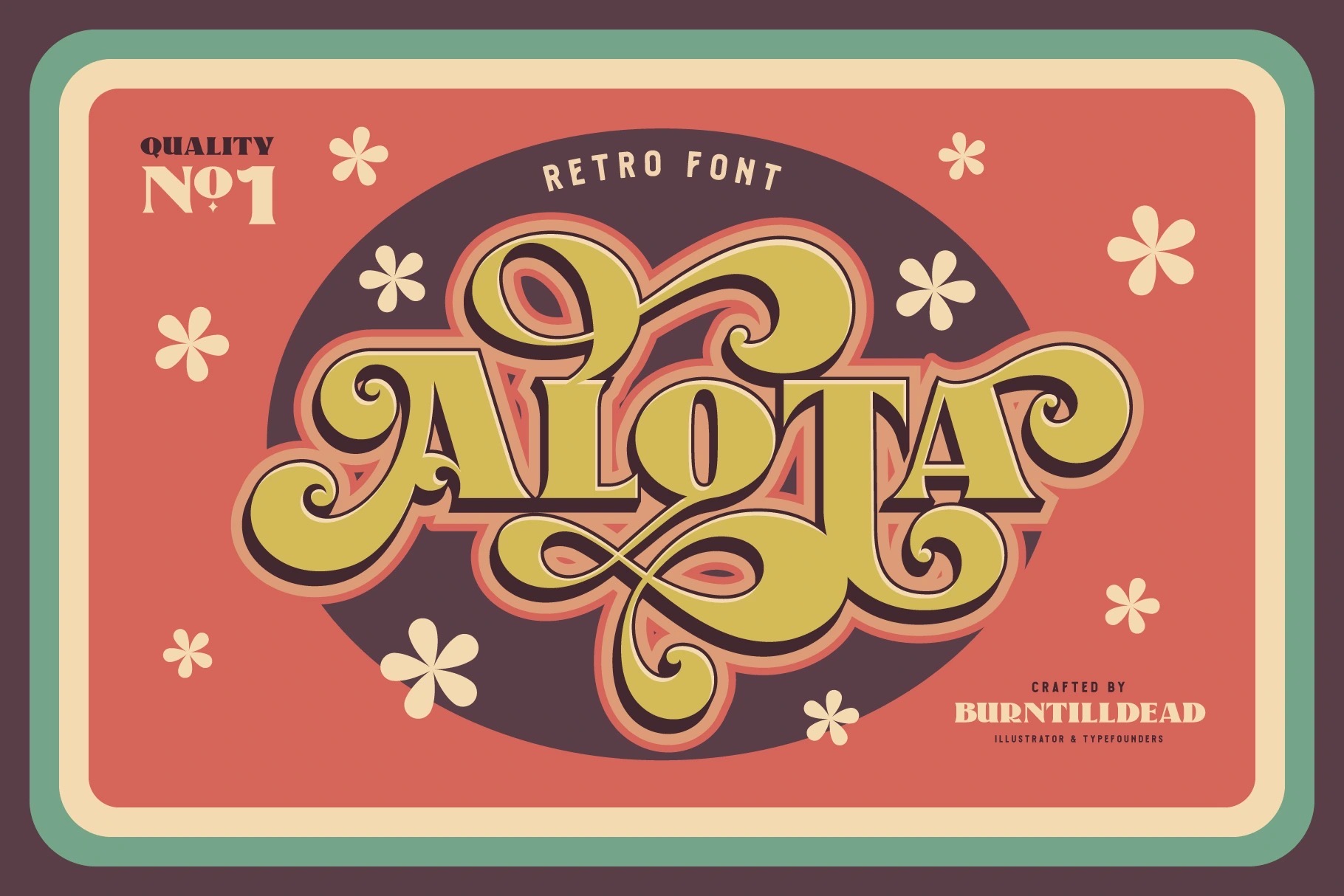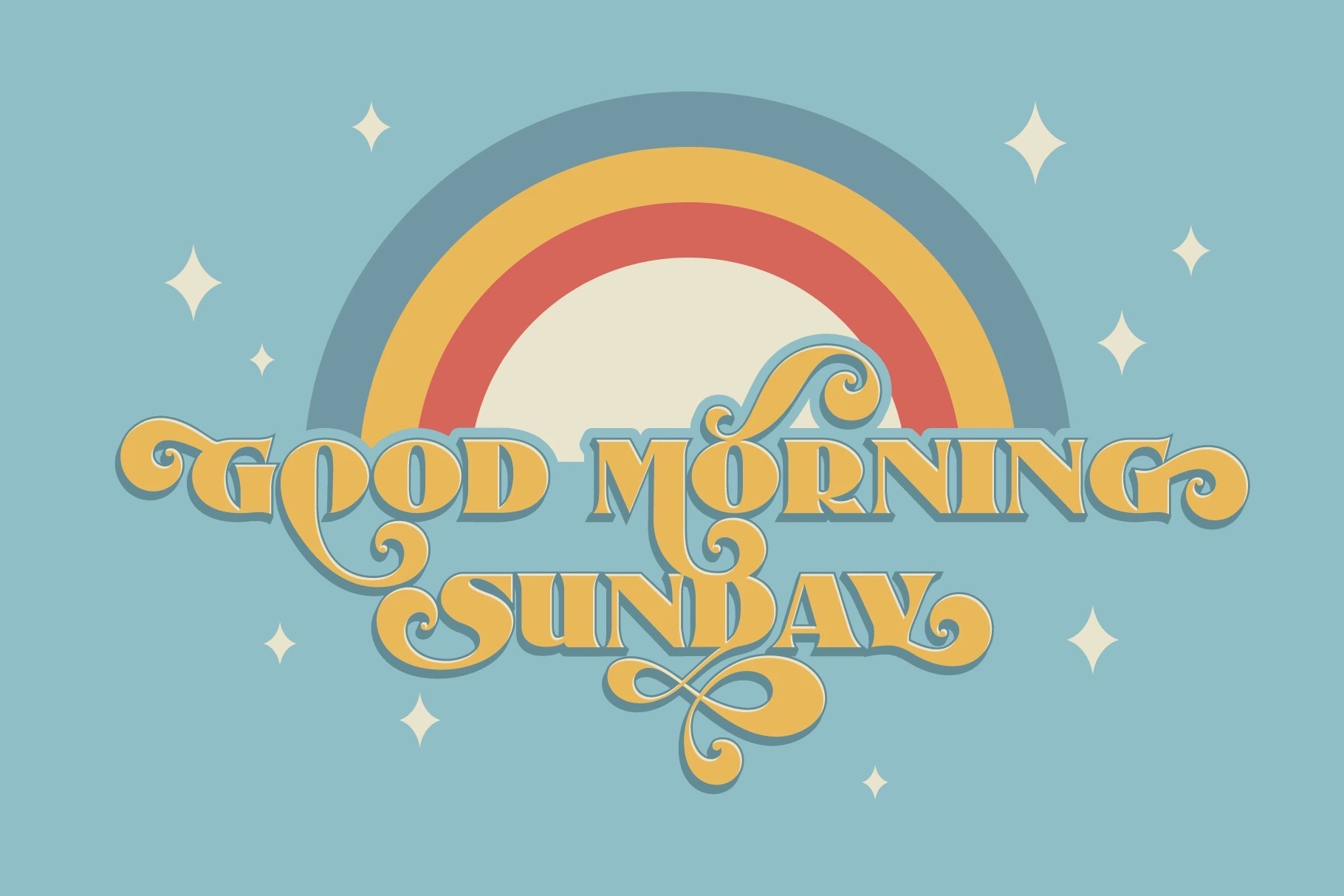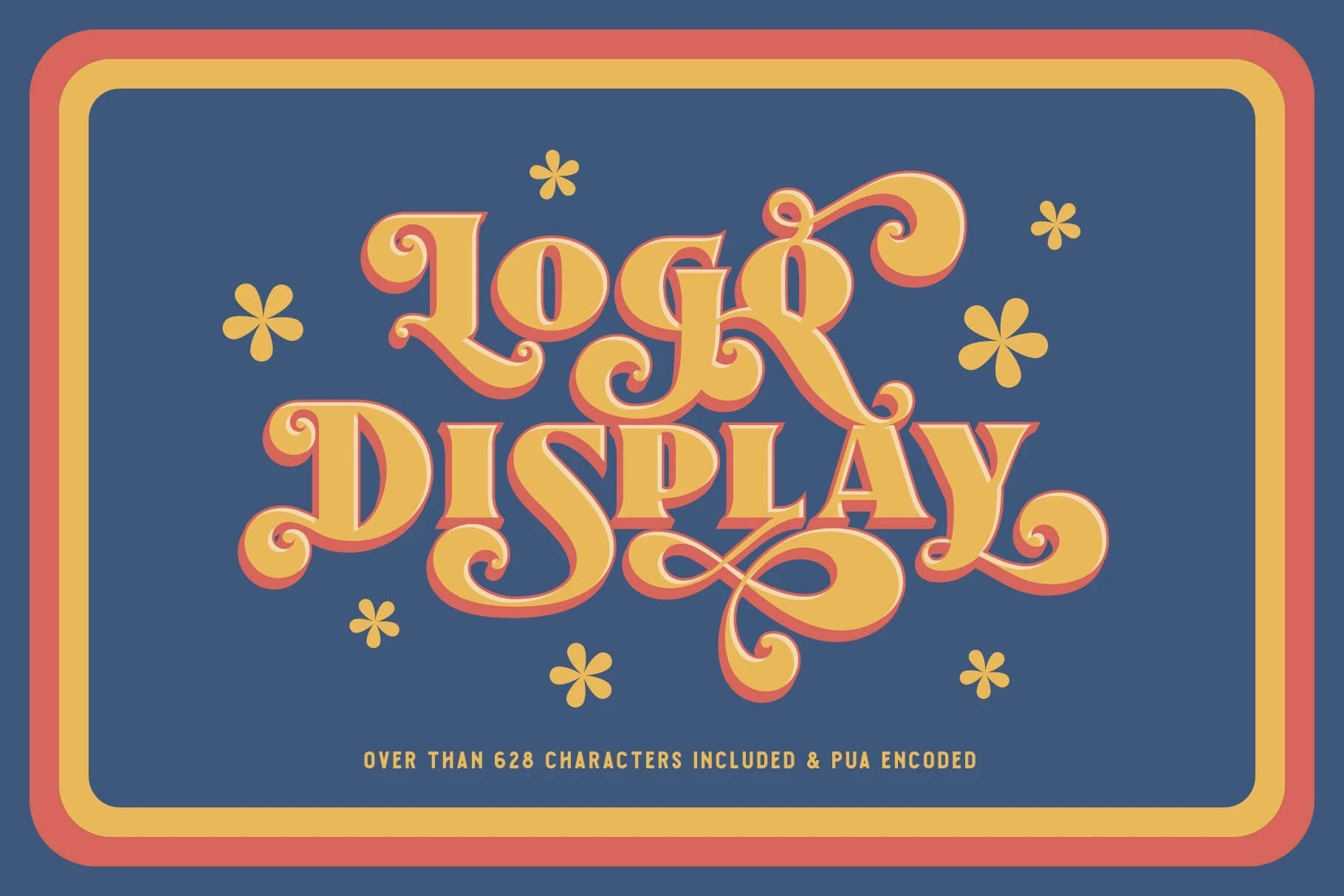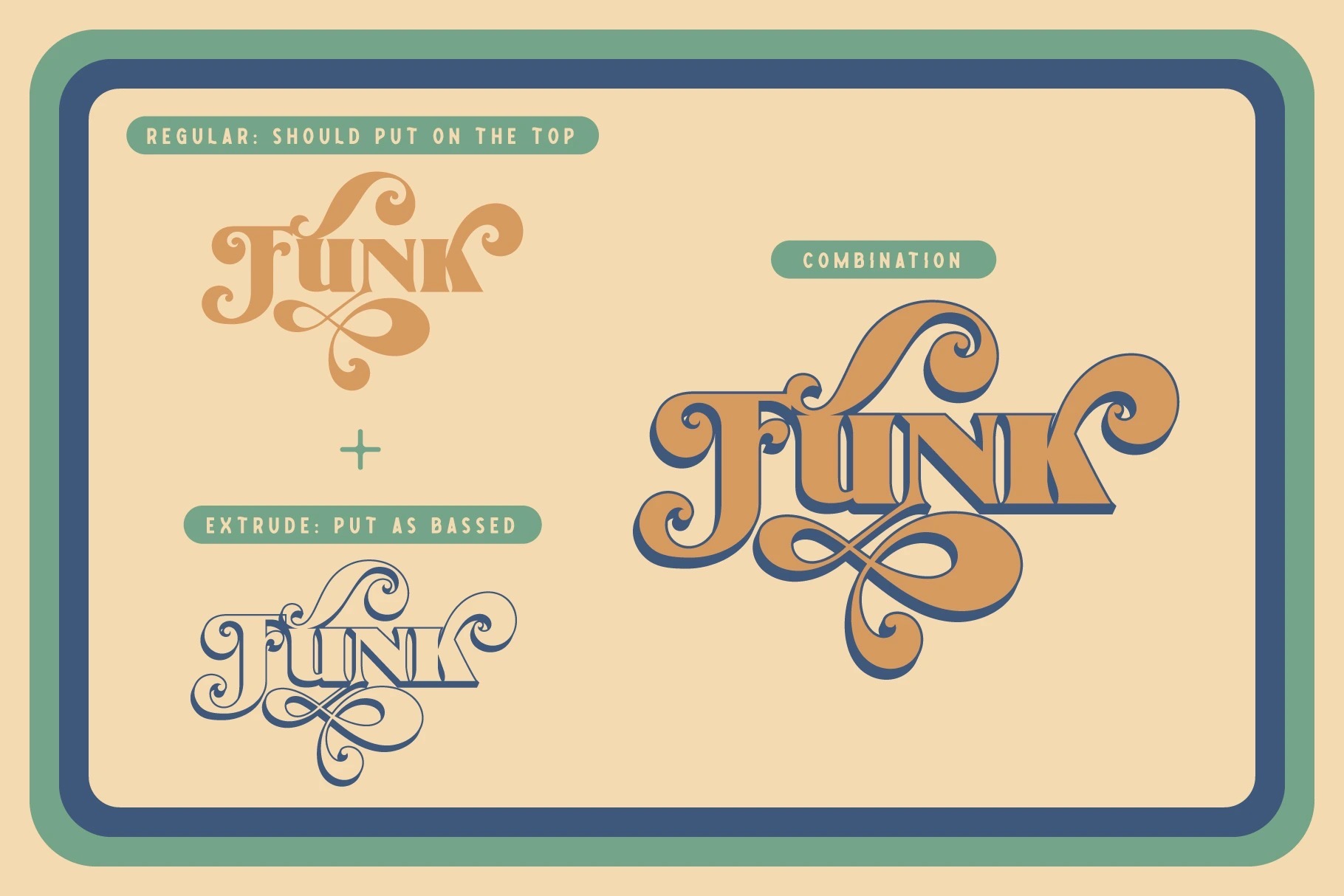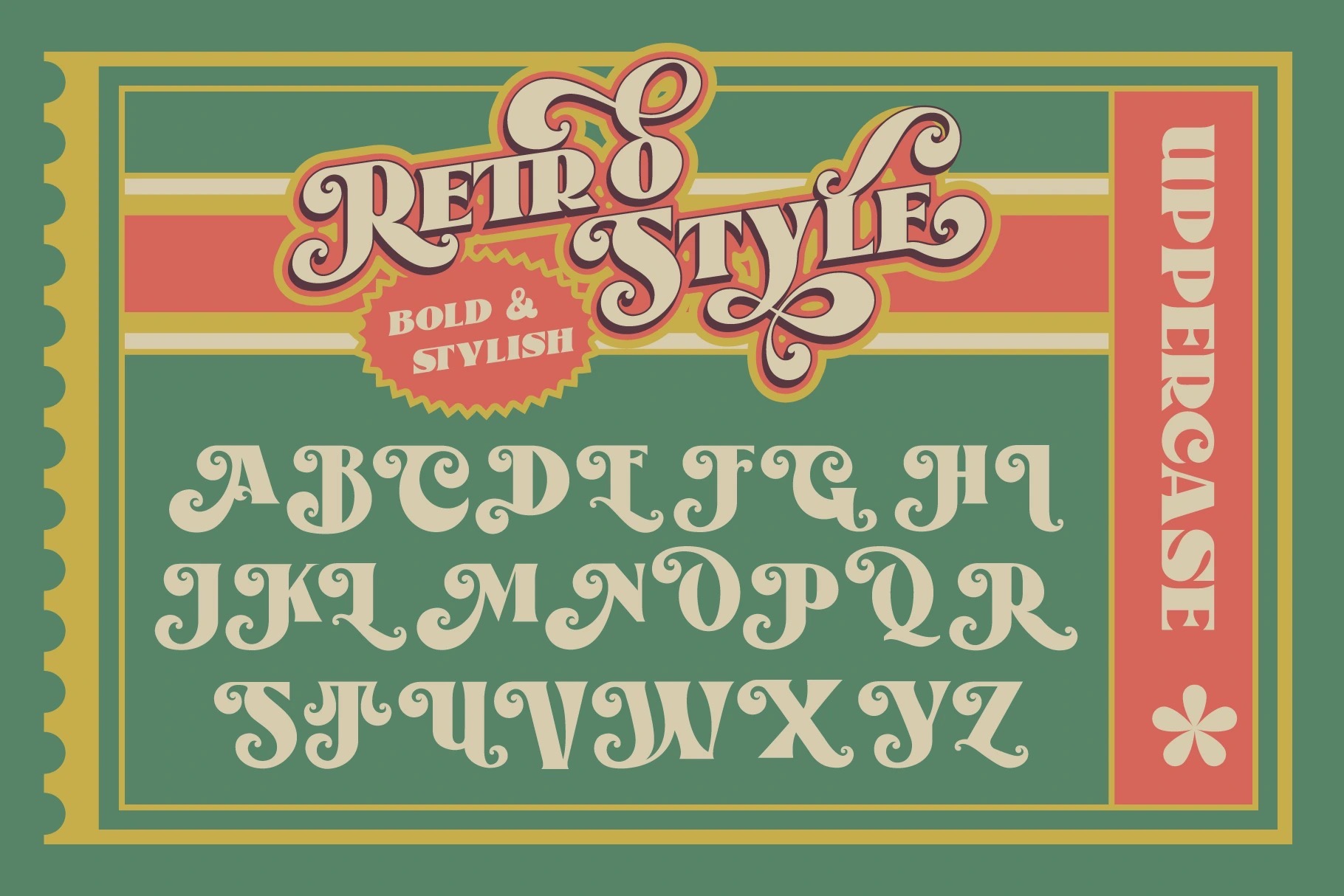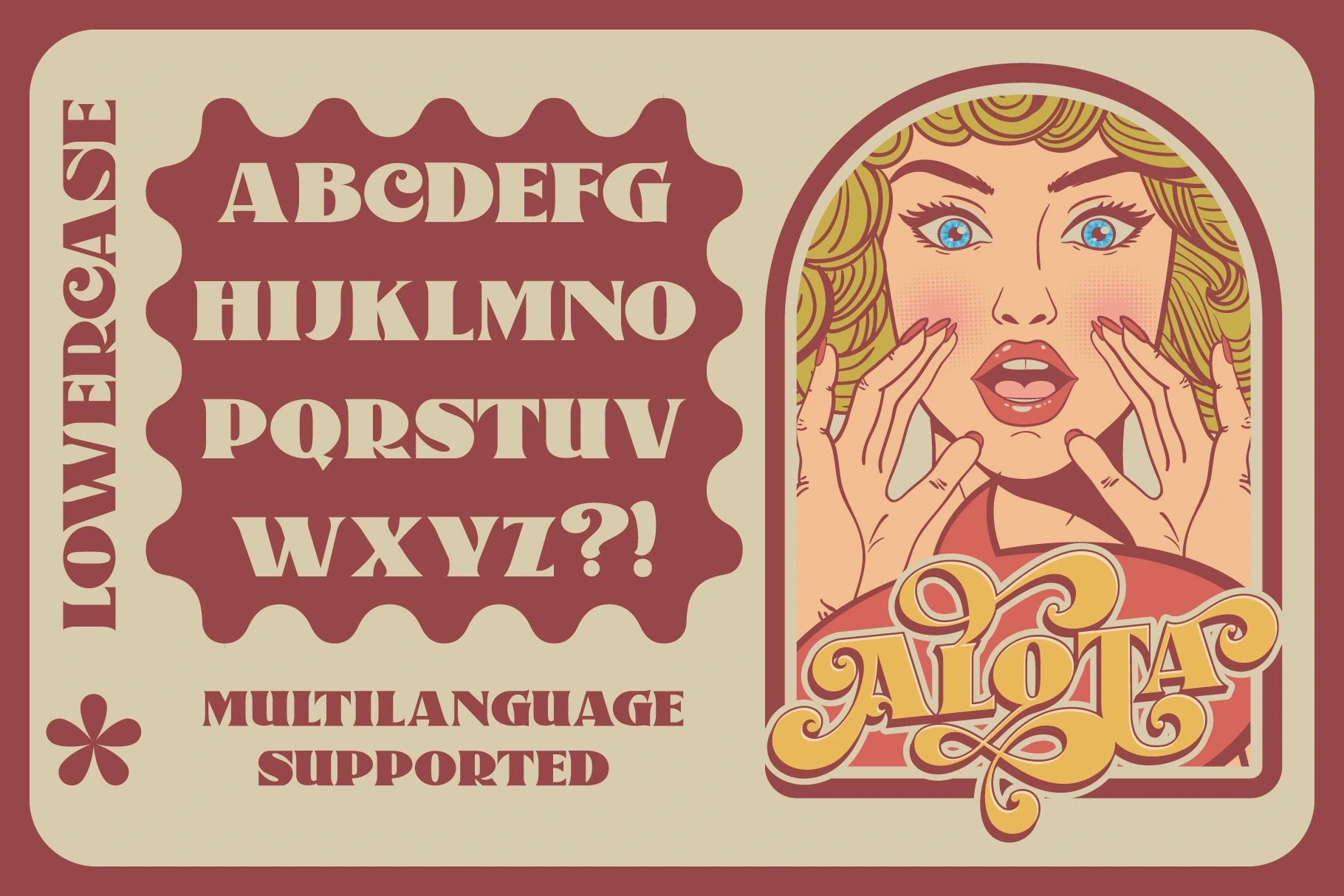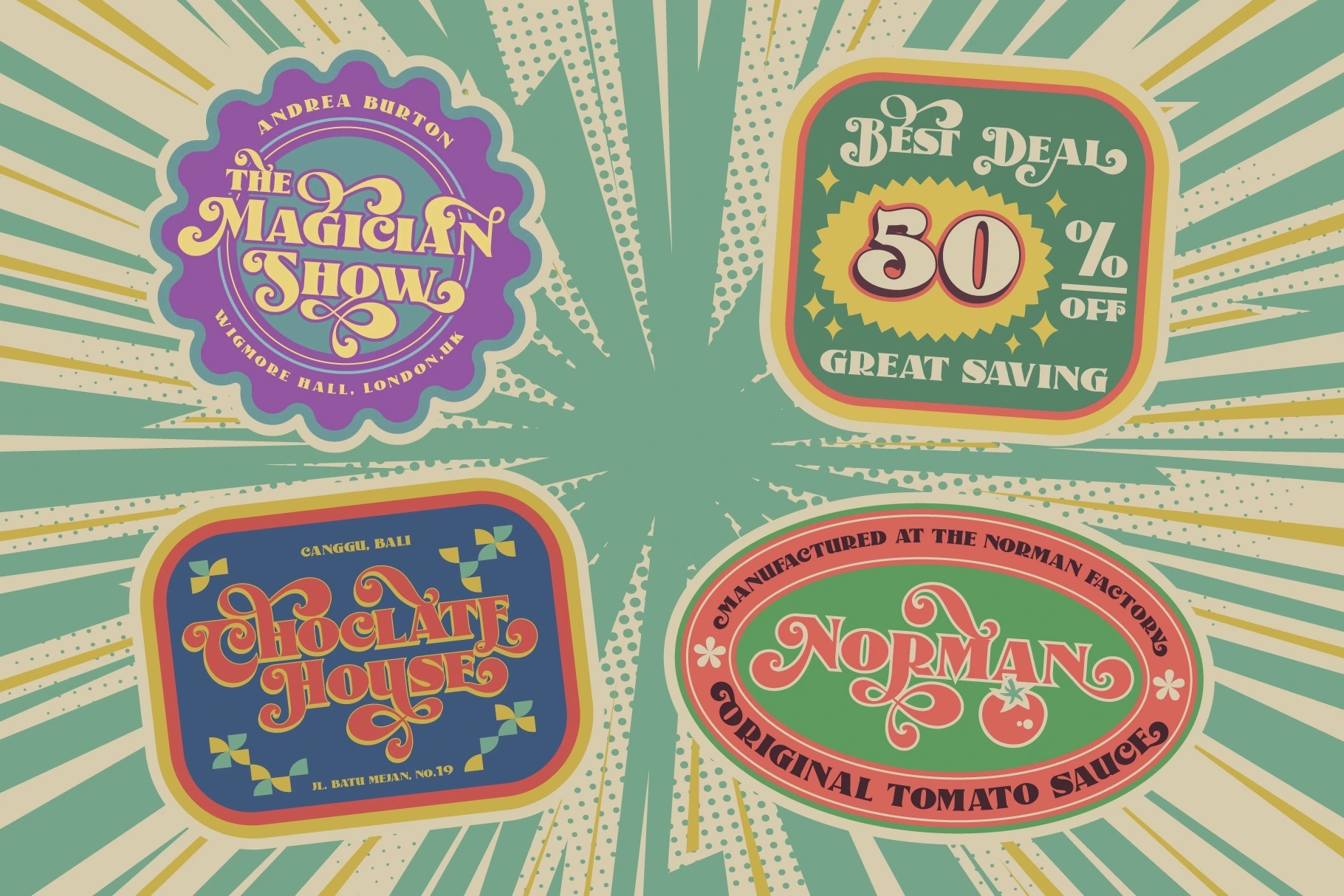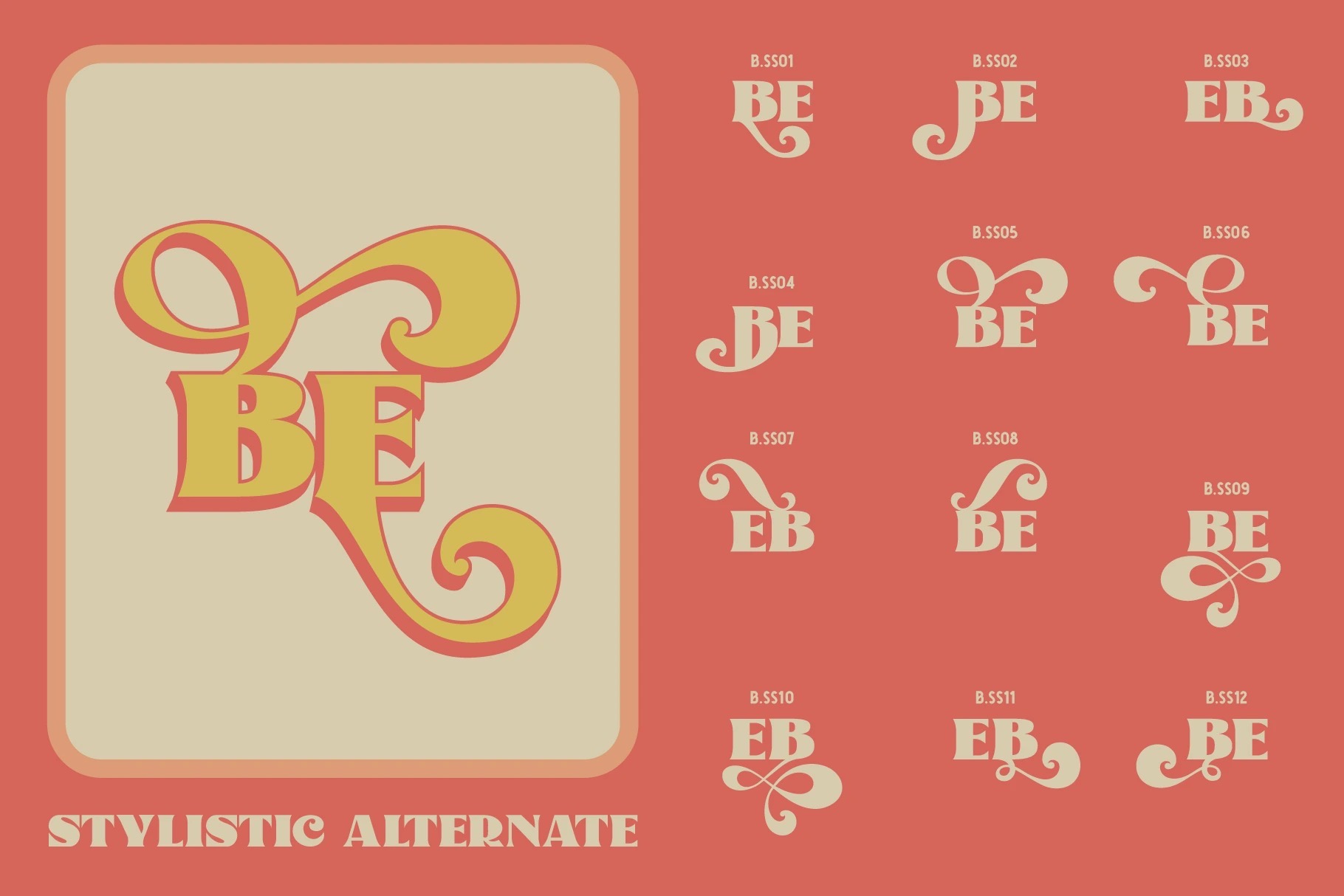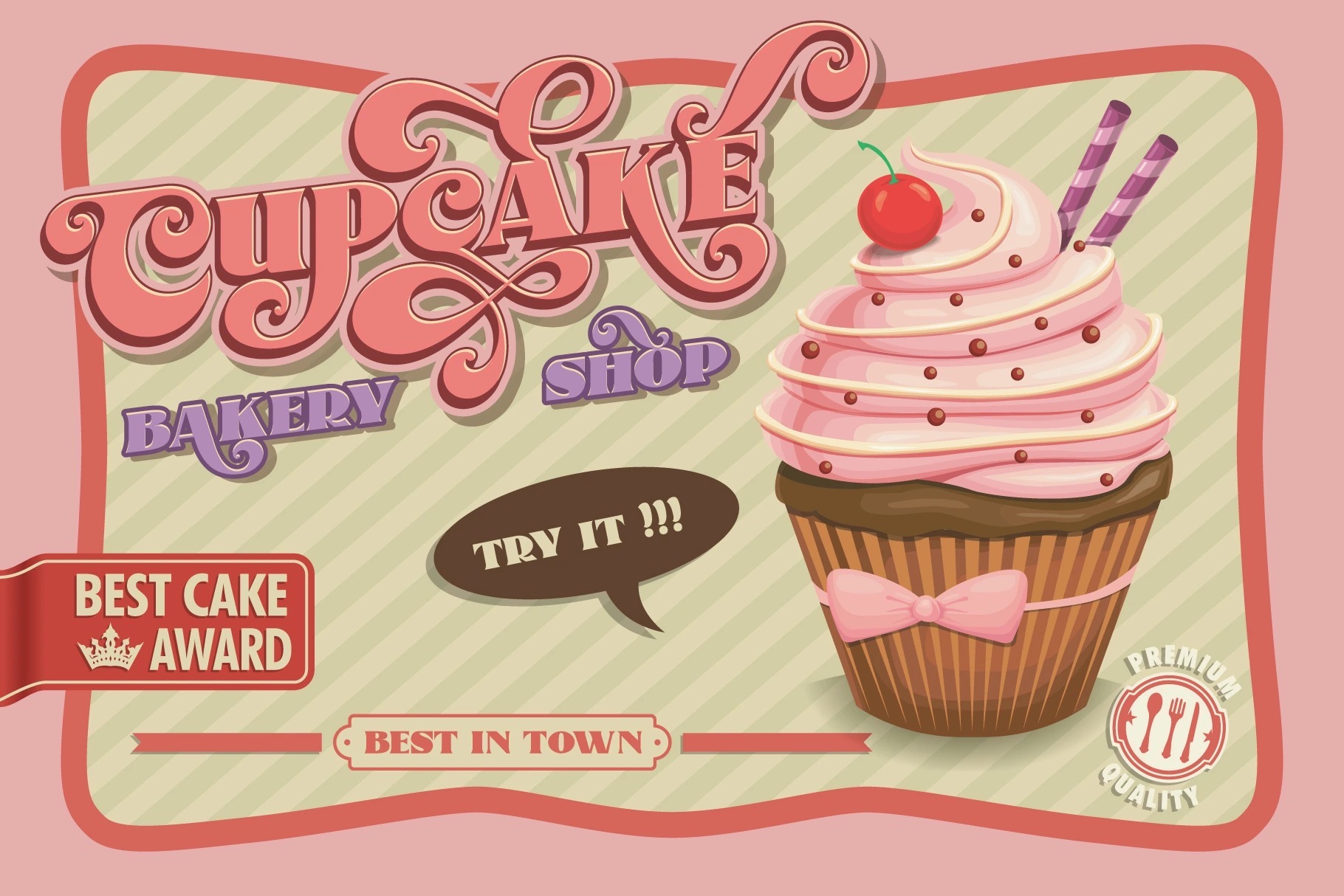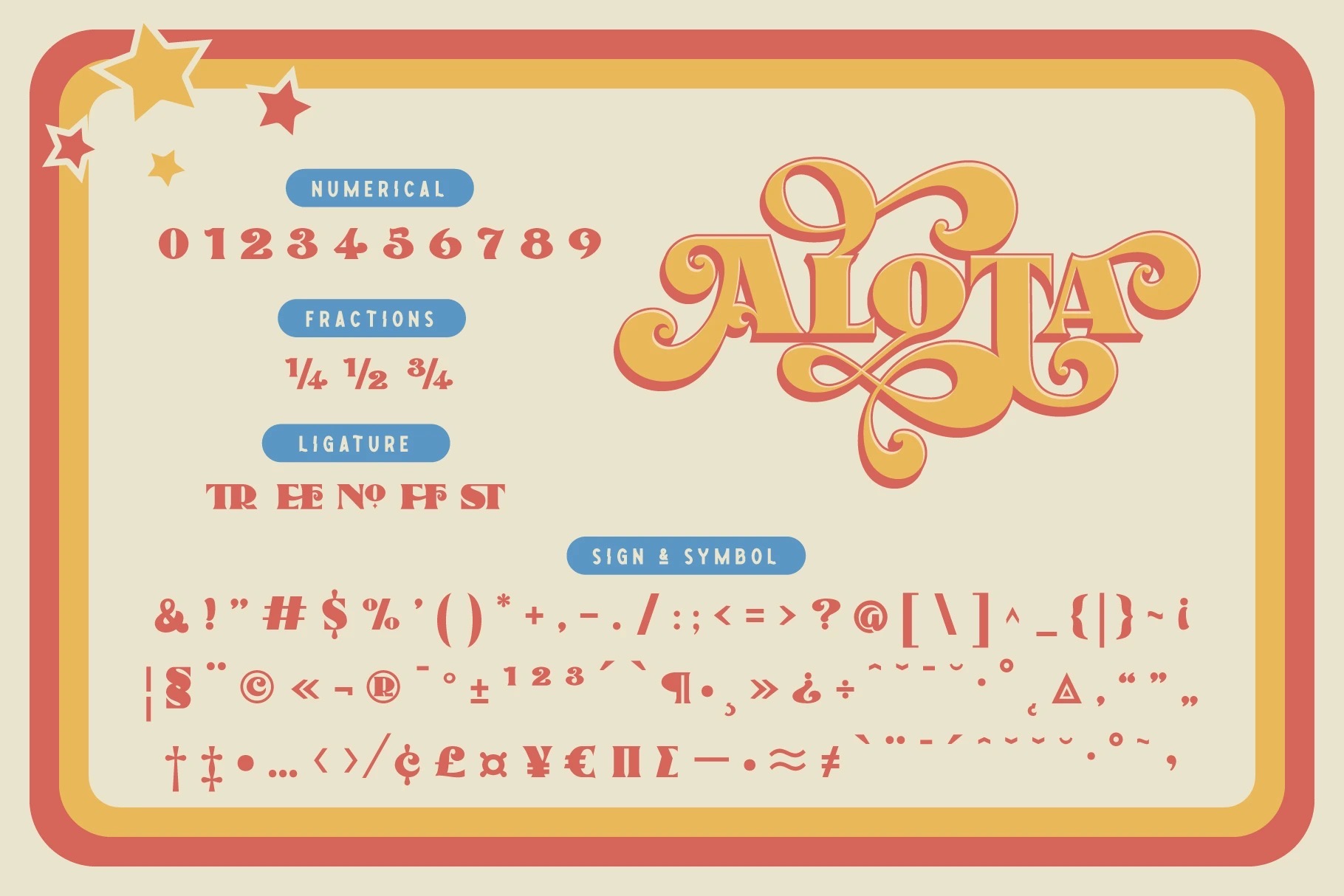
Say hi to “Alota” retro typeface. Inspired by 70’s design styles, a good decade where we saw many calm colors with groovy, bold, 3D and round shape.
This font is very easy to use with hundreds of stylistic alternate (ss01-ss12) & powered with opentype feature.
The font really bring a good statement for your logo design and can be the image of a design.
Alota is very unique and easy to apply to any media; t-shirts, posters, sign boards, and social media needs.